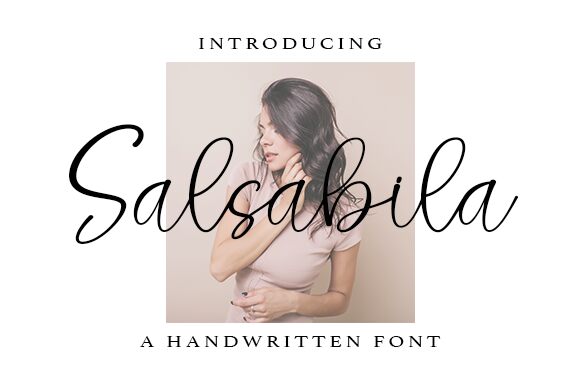
Salsabila
Salsabila, designed by Wahyu Studio, is a semi-light handwritten font that brings a personal touch to every design. Its fluid, cohesive strokes echo the elegance of cursive writing while maintaining an air of simplicity and readability. The semi-light weight provides a delicate feel, making it an excellent choice for invitations, branding, and editorial design where a hint of intimacy is desired.
The Salsabila font embodies a blend of classic handwriting with modern flair. Its distinctive character shapes ensure that your text stands out with style without overwhelming your design. Whether crafting heartfelt wedding stationery or creating standout social media graphics, Salsabila's aesthetic appeal will add an organic sophistication to any creative project.